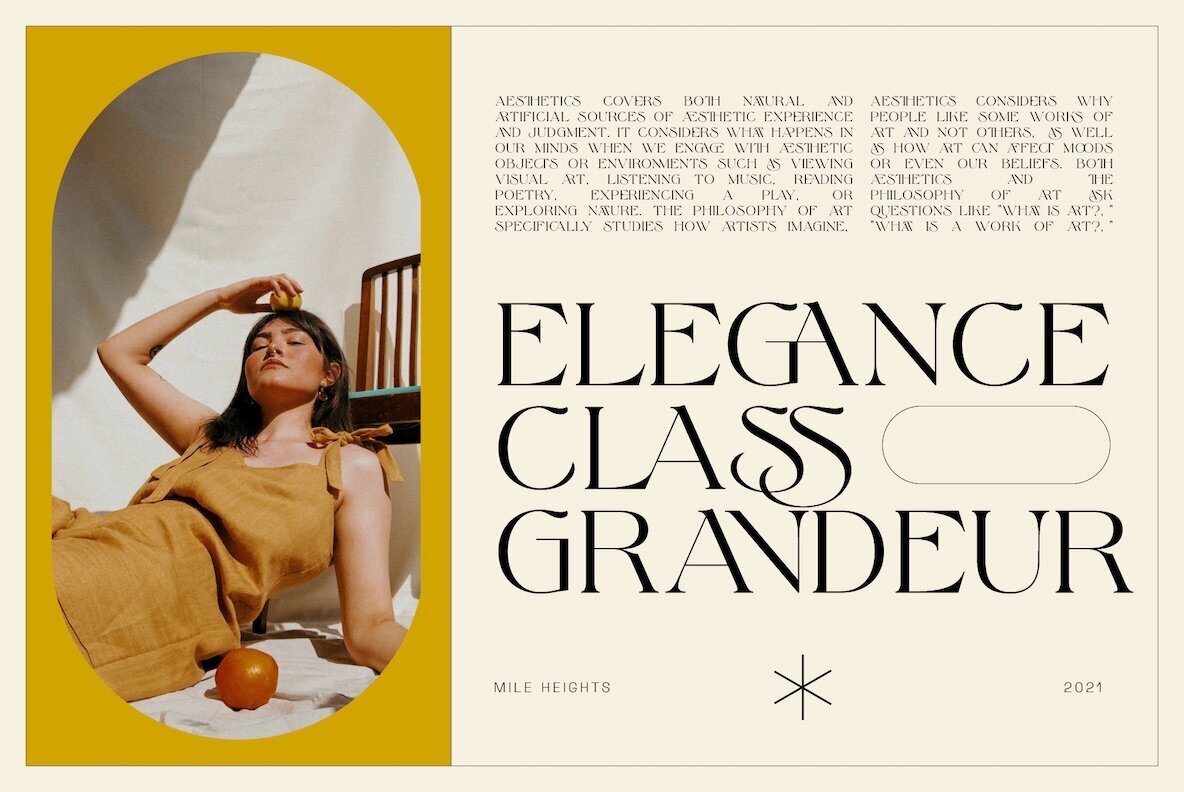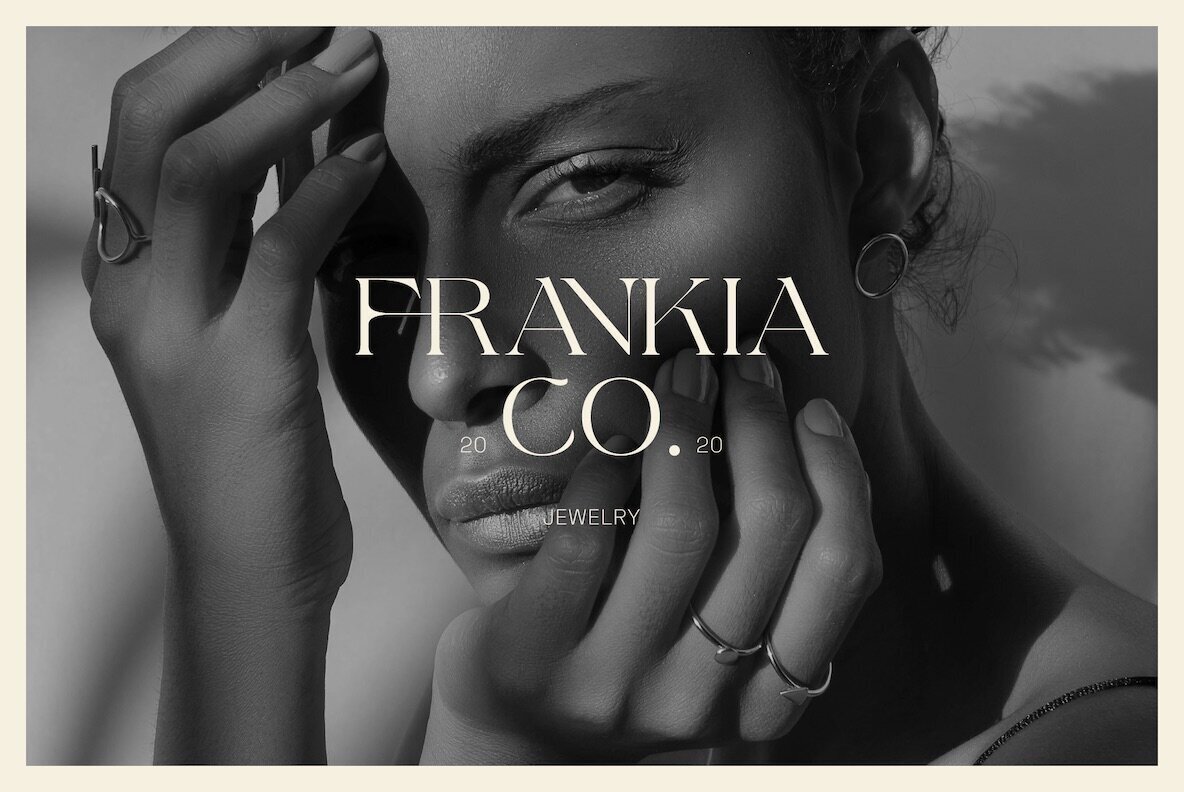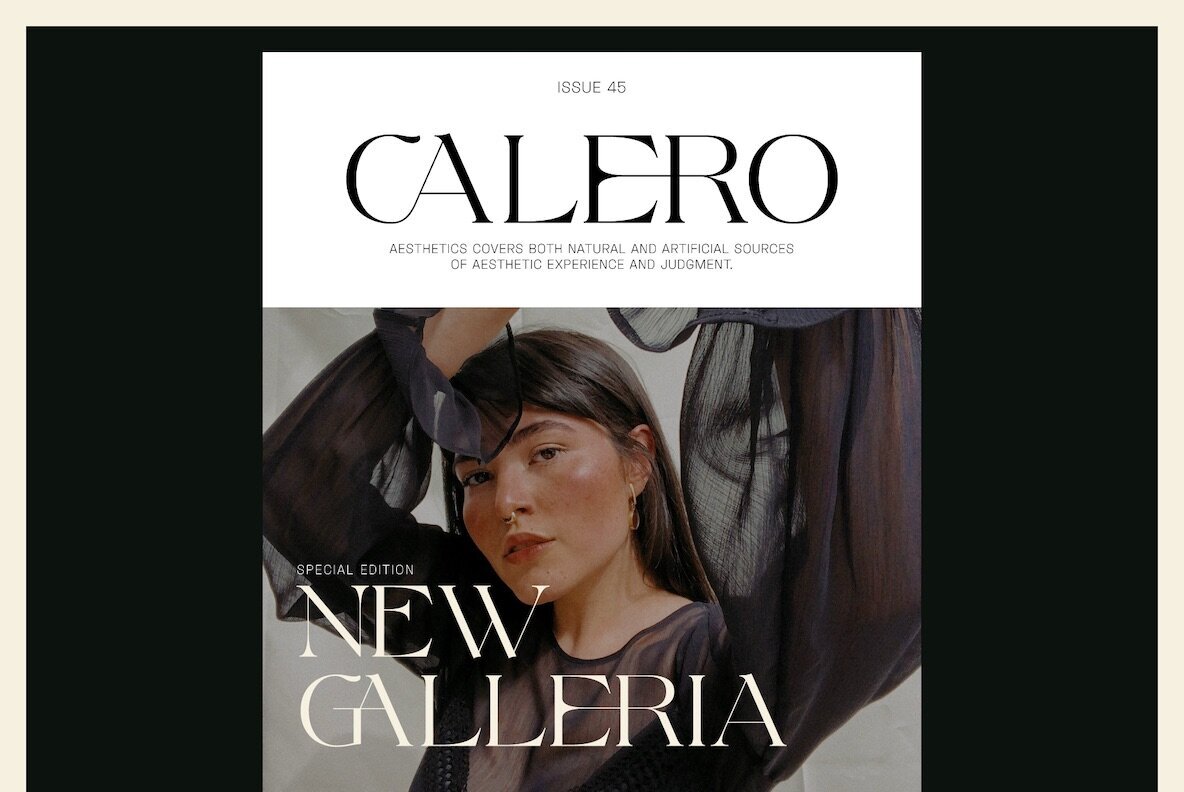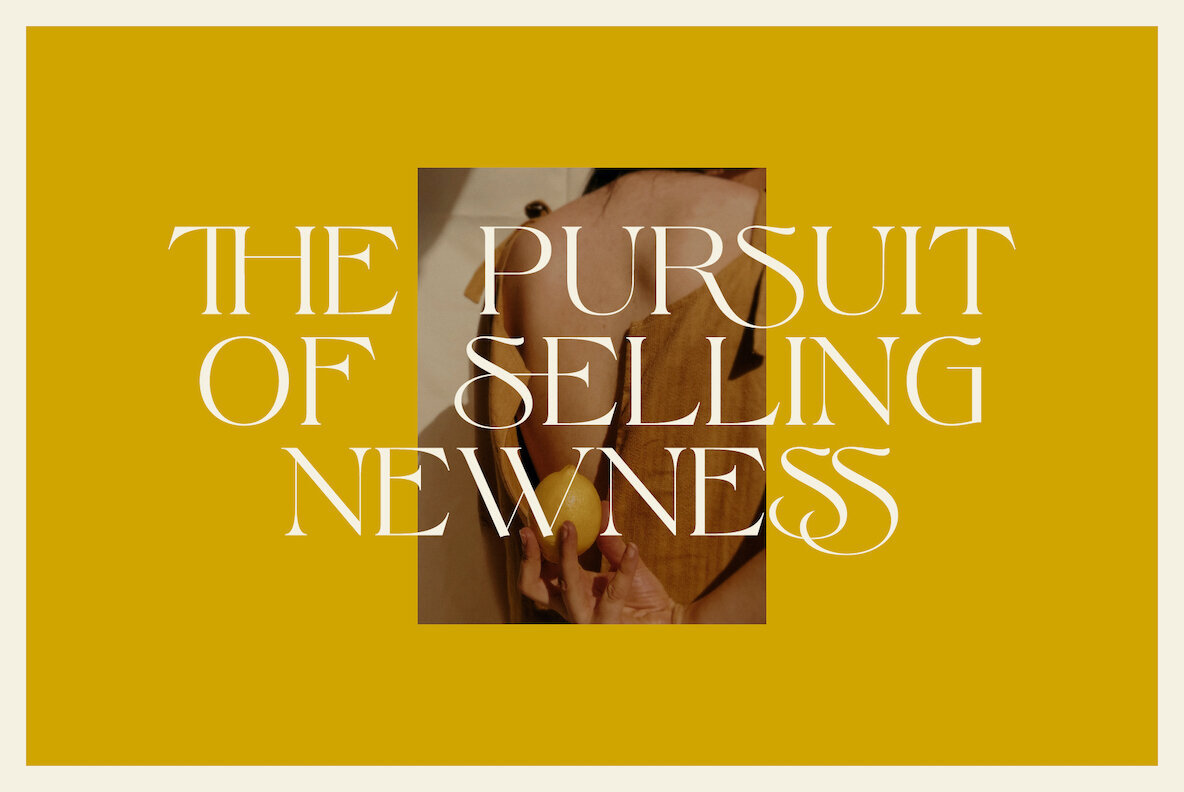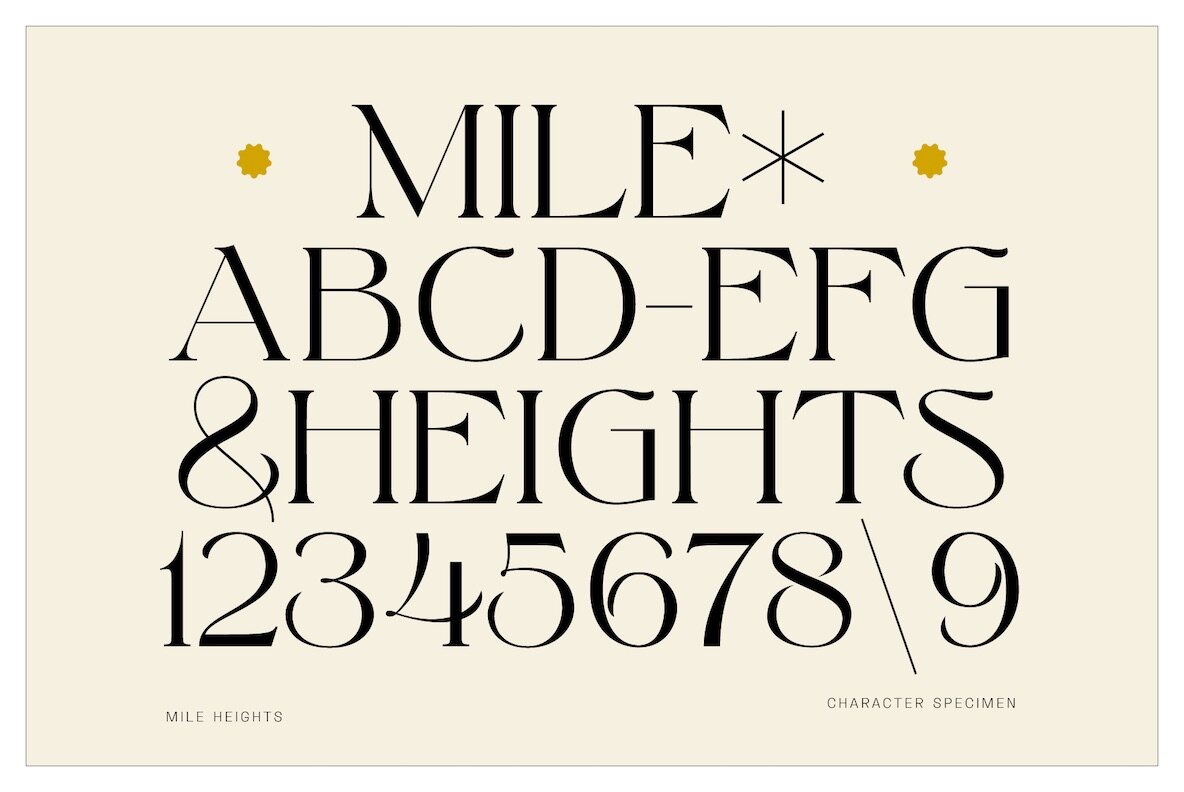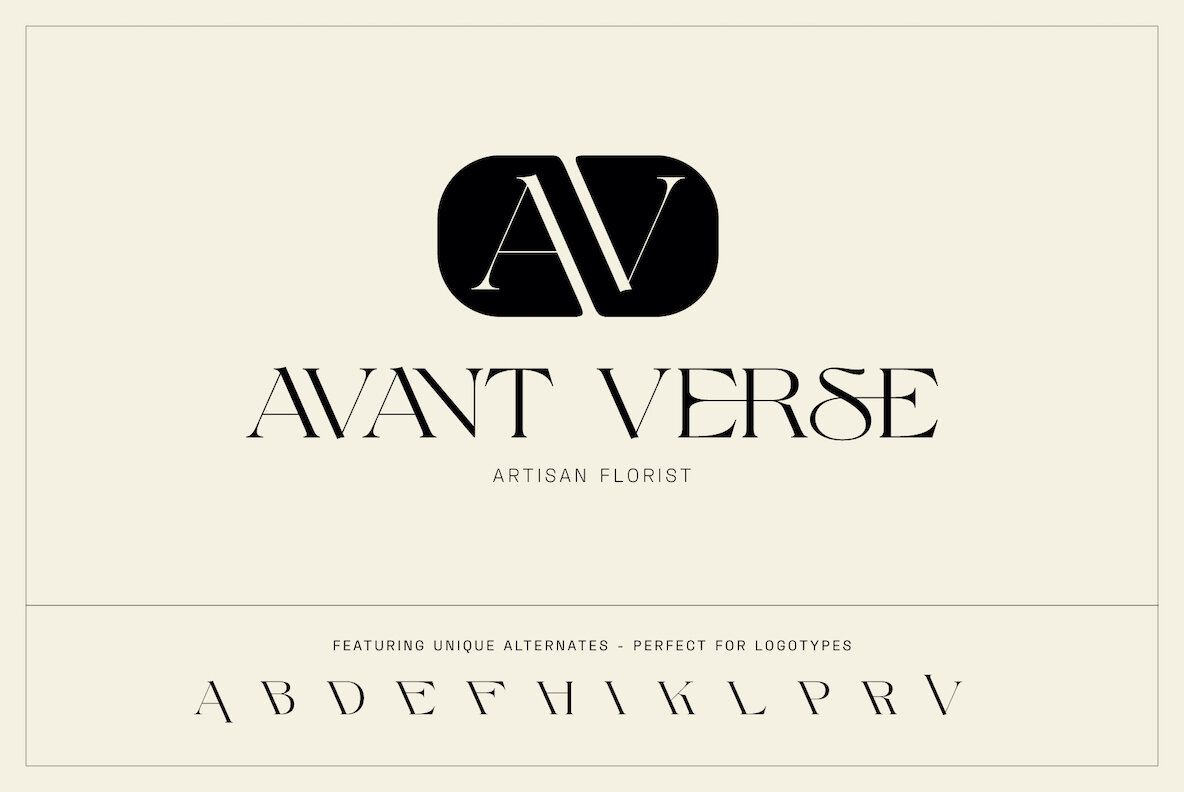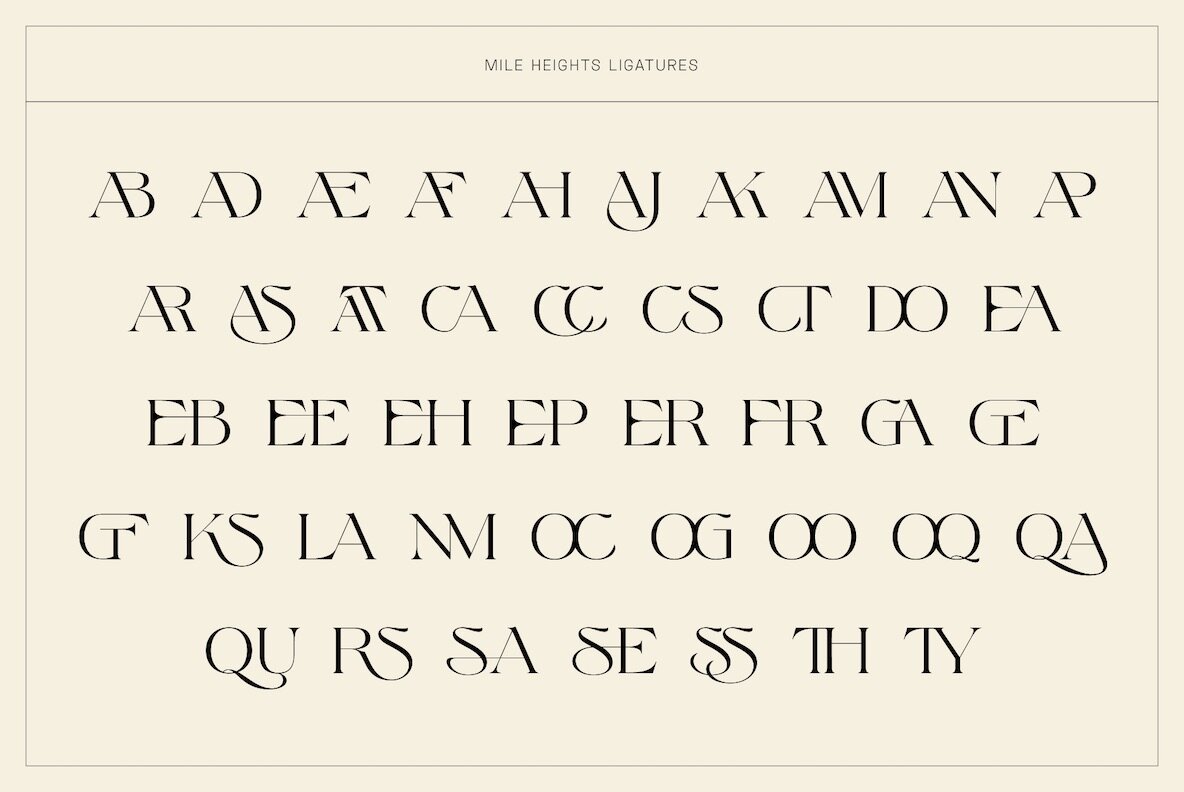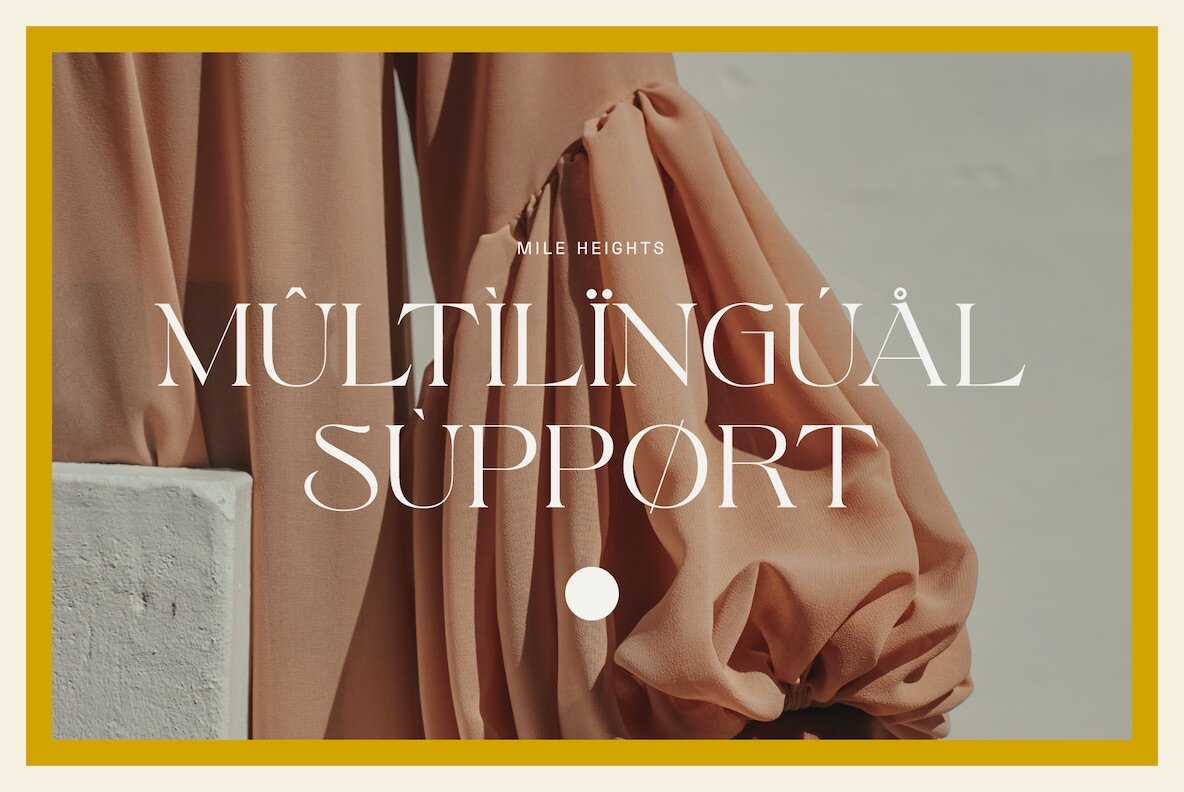
Mile Heights 1
Mile Heights is an elegant & modern display serif typeface with some truly unique characters that will make your work stand out!
The custom alternate characters and ligatures make this product perfect for creating logotypes & wordmarks, editorial designs, stationery, product packaging & so much more.
Mile Heights features multilingual support and comes with 43 ligature options.